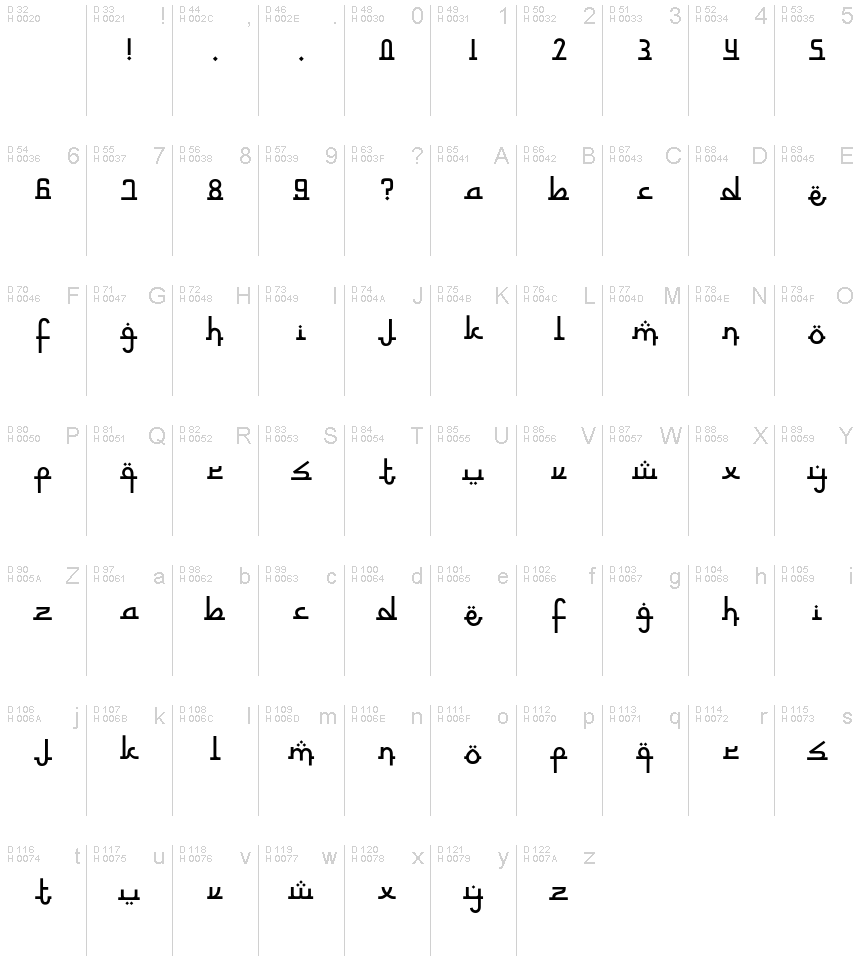
Nurkholis
Nurkholis is a captivating font that exudes a sense of mystery and cultural richness. Inspired by the allure of Arabic calligraphy, this faux-Arabic typeface boasts a distinct aesthetic that seamlessly blends traditional influences with a modern sensibility.
The flowing, organic lines and intricate ligatures create a captivating visual rhythm, evoking the essence of ancient Middle Eastern scripts. Nurkholis' versatility shines through, making it a versatile choice for a wide range of design applications, from editorial layouts to branding and packaging. Its unique personality can elevate any project, infusing it with a touch of the exotic and the alluring.